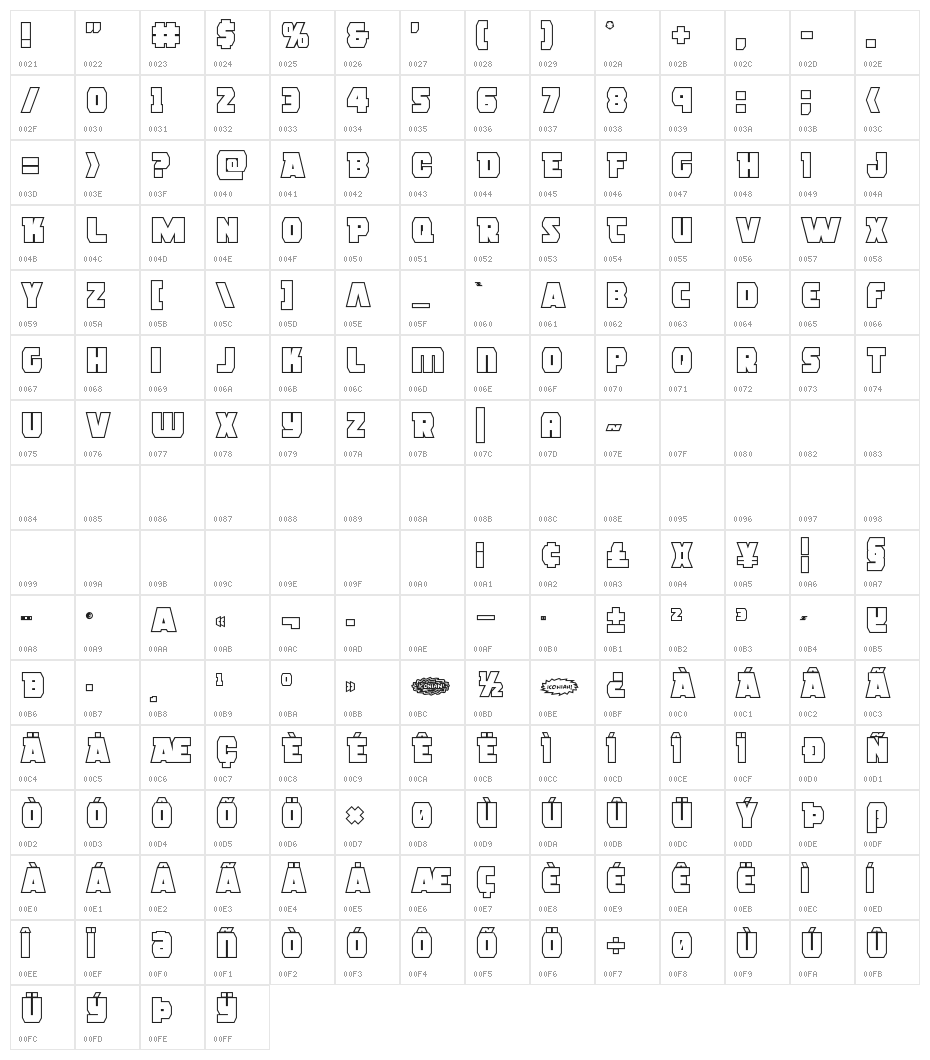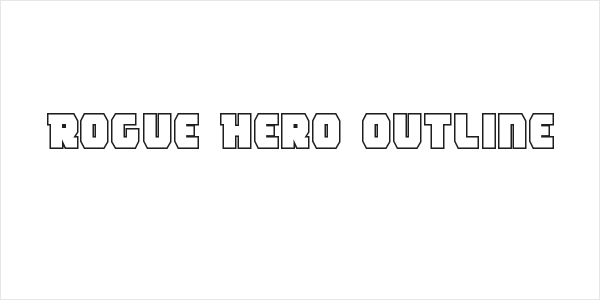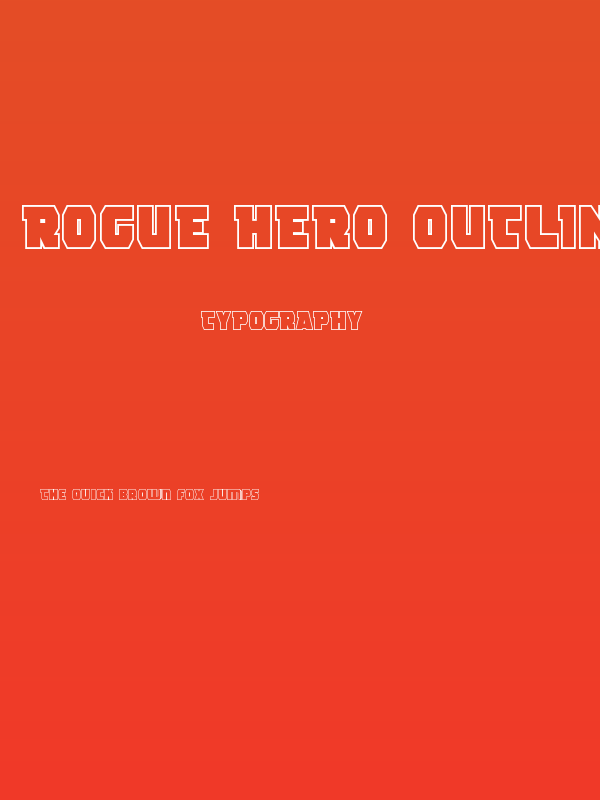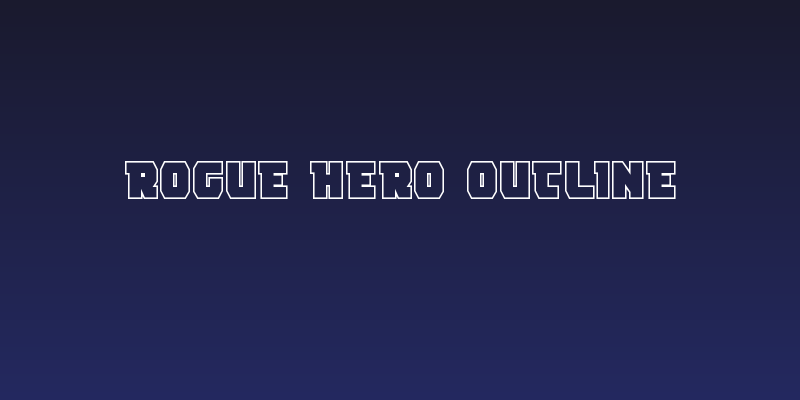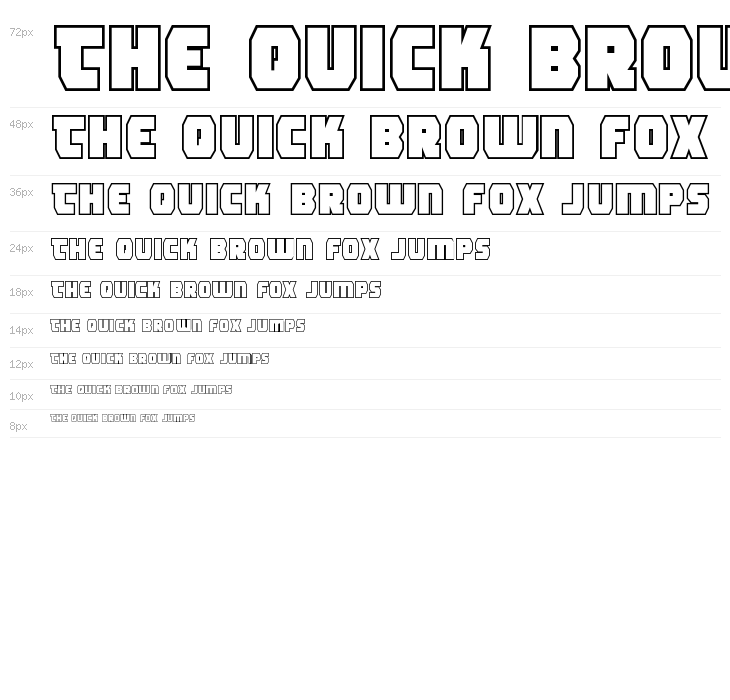
Rogue Hero Outline Font
Rogue Hero Outline Description
This font features a bold, geometric outline style that gives it a strong and impactful presence. The characters are constructed with straight lines and sharp angles, creating a sense of modernity and strength. The uppercase and lowercase letters maintain a consistent design, with a uniform thickness throughout the outlines. The numbers and special characters follow the same stylistic approach, ensuring a cohesive look across all elements. This font's distinct outline makes it stand out, ideal for projects that require a bold and eye-catching display.